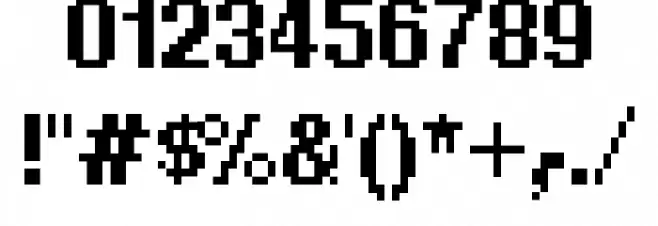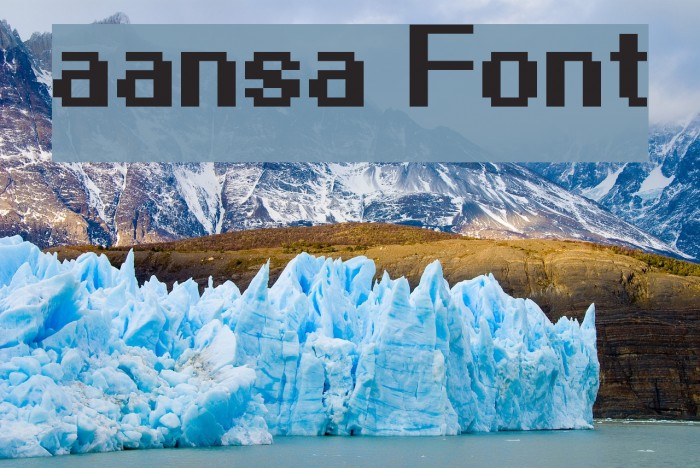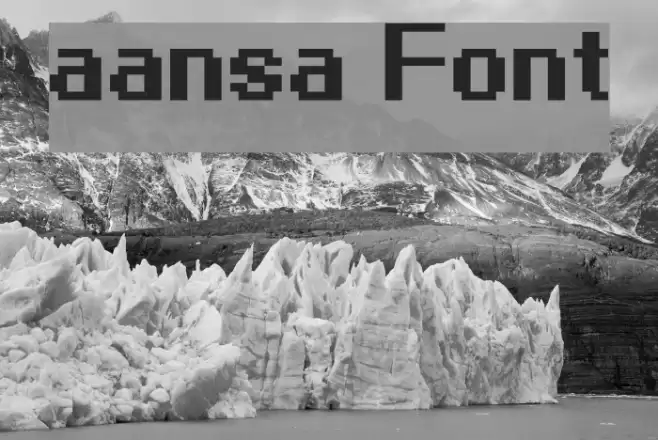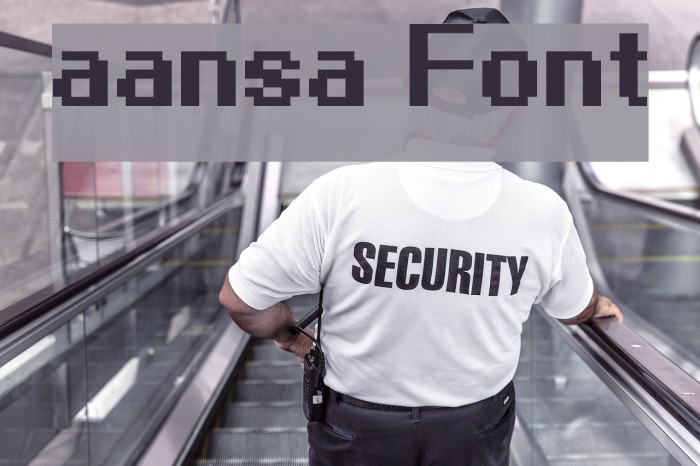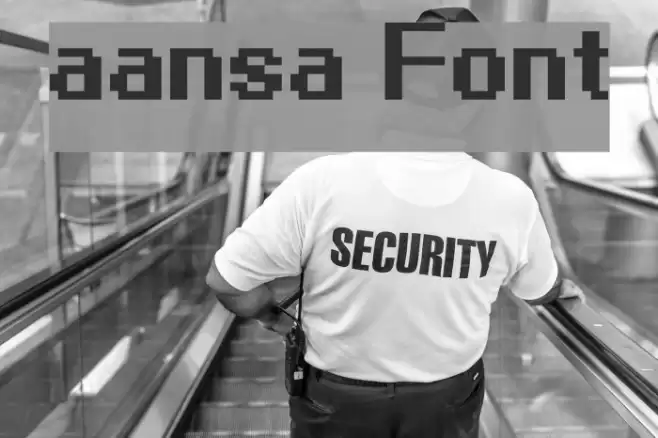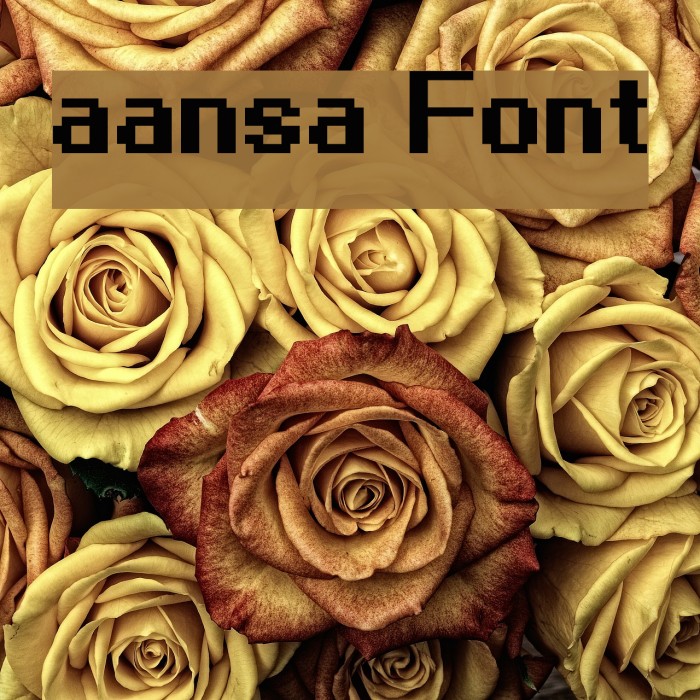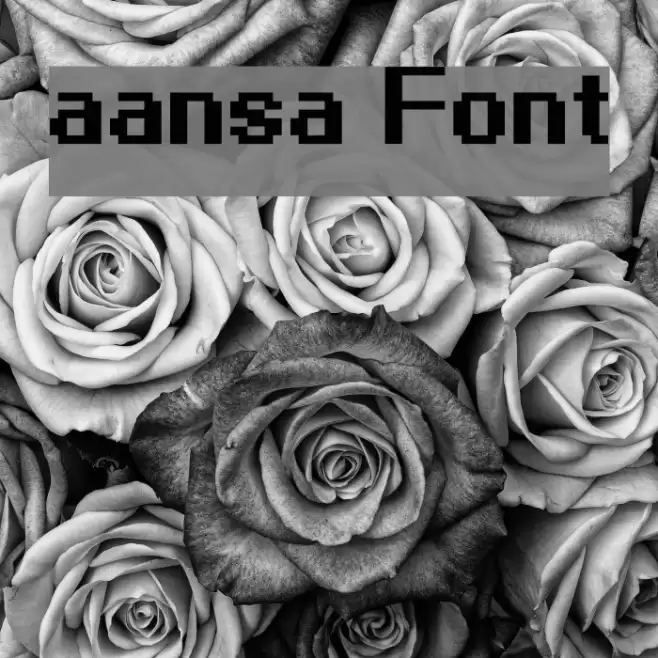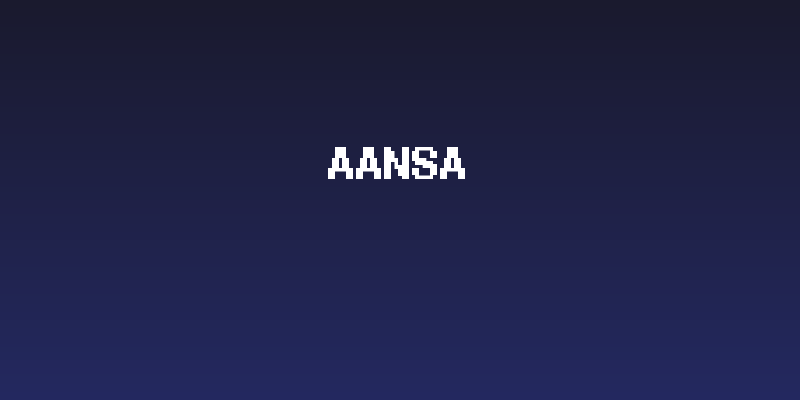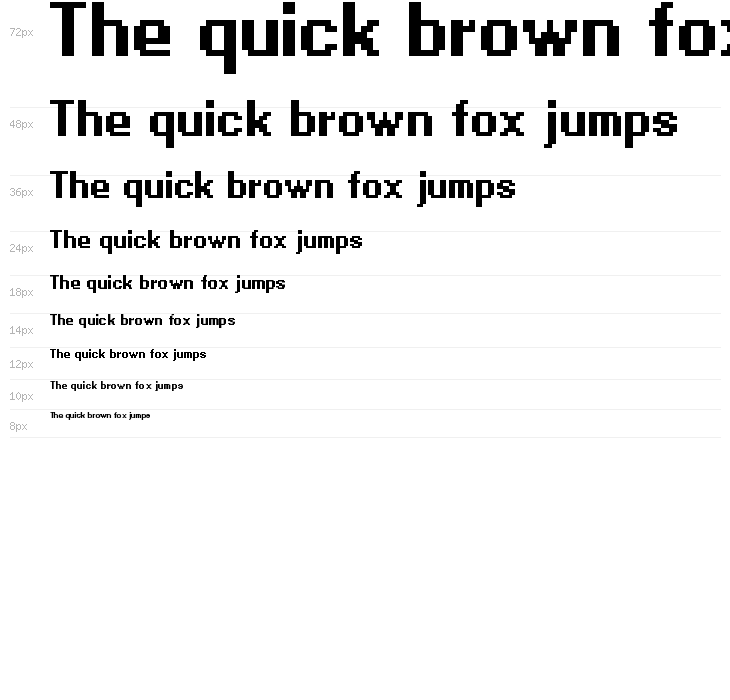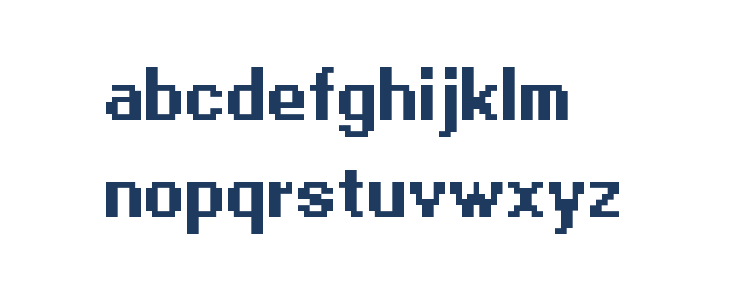
aansa Font
aansa Description
This font features a bold, pixelated style reminiscent of early digital displays and retro video games. Each character is constructed with a blocky, grid-like appearance, giving it a distinctly digital and vintage feel. The uppercase and lowercase letters maintain a consistent height, enhancing readability while preserving the nostalgic aesthetic. Numbers and special characters follow the same pixelated design, ensuring uniformity across all glyphs. The font's geometric structure and sharp edges make it ideal for projects that aim to evoke a sense of nostalgia or pay homage to the early days of digital typography.
| Use Case | Logos, Headlines, Digital Art |
| Proposed Projects | Ideal for retro-themed designs, video game graphics, digital art projects, and nostalgic branding. |